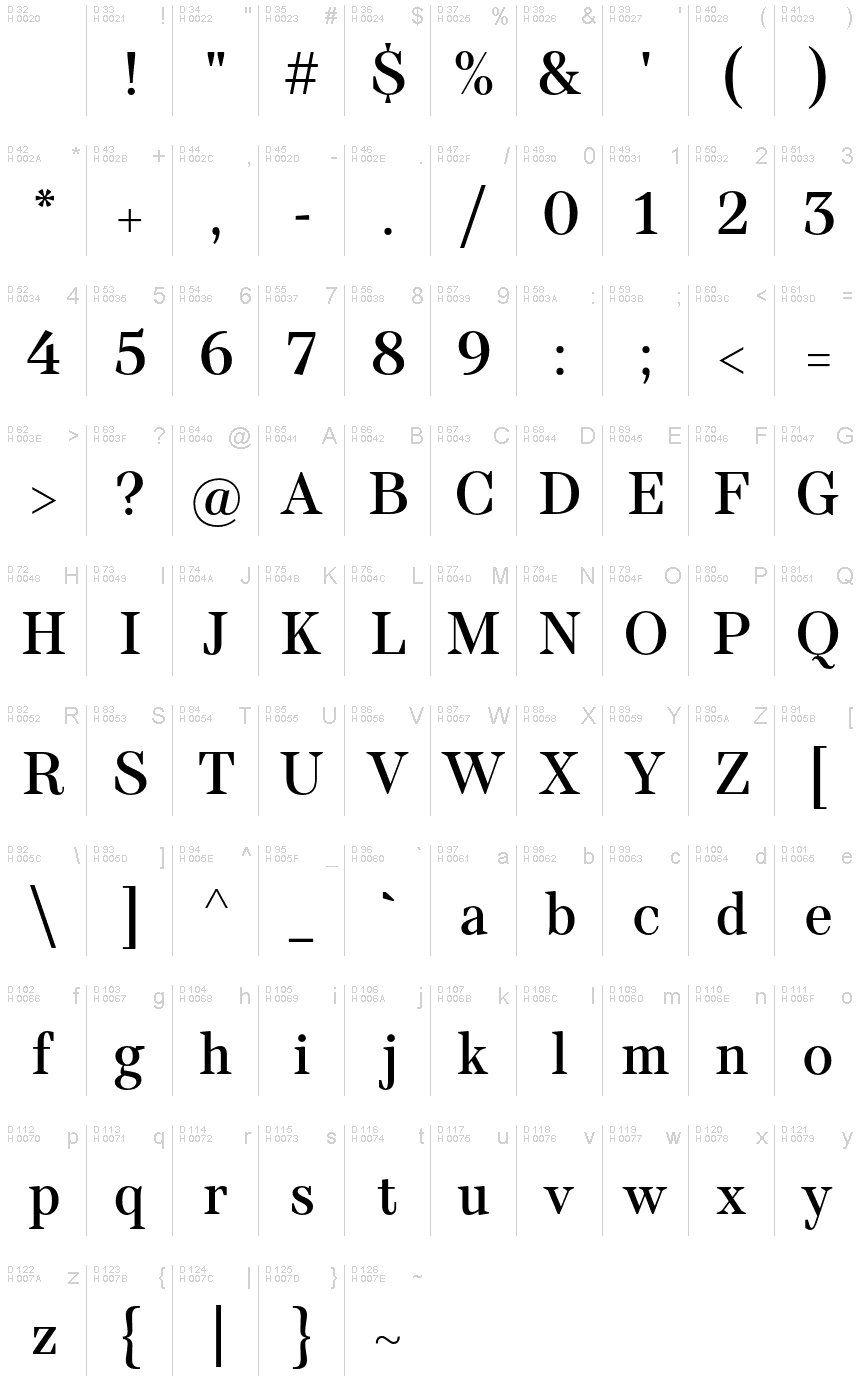
TT Barrels Trl DemiBold
TT Barrels DemiBold is a refined serif font that exudes sophistication and elegance. Crafted by TypeType Foundry, this semi-bold typeface offers a balance between classic and contemporary design elements. Its versatile nature makes it suitable for various projects, such as logo design, branding, editorial layouts, packaging, and even web design. The unique character of TT Barrels DemiBold adds an air of professionalism to any project it's used in. With its smoothly curved letterforms and sharp edges, this font can easily elevate your designs to the next level. Try it out today and see the difference for yourself!